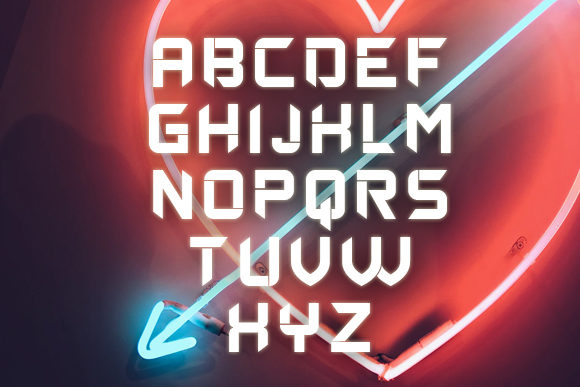
Eros Font: A Sharp Display Font Family to Elevate Your Designs
Are you tired of using the same old fonts in your designs? Look no further than the Eros font, a sharp display font family that is sure to blow your mind. With its sleek and edgy design, Eros is perfect for creative and ambitious projects that require a bold and attention-grabbing typeface.
Eros is a modern display font family that is designed to make a statement. Its sharp lines and geometric shapes give it a unique and futuristic look that is sure to turn heads. The font comes in various styles, allowing you to choose the perfect one to fit your design needs.
- Sharp and Edgy Design: Eros font features sharp lines and geometric shapes, giving it a bold and edgy look that is perfect for designs that require a modern and sleek typeface.
- Multiple Styles: Eros font comes in various styles, allowing you to choose the perfect one to fit your design needs. Whether you’re looking for a bold and attention-grabbing font or a more subtle and elegant one, Eros has got you covered.
- High-Quality Typography: Eros font is designed with high-quality typography in mind. Its clear and legible design makes it perfect for use in a variety of design applications, from posters and flyers to logos and branding materials.
- Versatile and Flexible: Eros font is versatile and flexible, making it perfect for use in a wide range of design applications. Whether you’re designing a website, a brochure, or a business card, Eros font is sure to make a statement.
Who is Eros Font for?
Eros font is perfect for designers and crafters who are looking for a bold and attention-grabbing typeface to elevate their designs. Whether you’re a professional designer or a DIY enthusiast, Eros font is sure to inspire your creativity and help you create stunning designs.
- Adds a Professional Touch: Eros font adds a professional touch to your designs, making them look modern and sleek.
- Increases Readability: Eros font is designed with readability in mind, making it easy for your audience to read and understand your message.
- Enhances Creativity: Eros font is sure to inspire your creativity and help you create stunning designs that stand out from the crowd.
In conclusion, Eros font is a sharp display font family that is sure to blow your mind. With its sleek and edgy design, multiple styles, and high-quality typography, Eros is perfect for creative and ambitious projects that require a bold and attention-grabbing typeface. Whether you’re a designer or a crafter, Eros font is sure to elevate your designs and help you create stunning visual content.